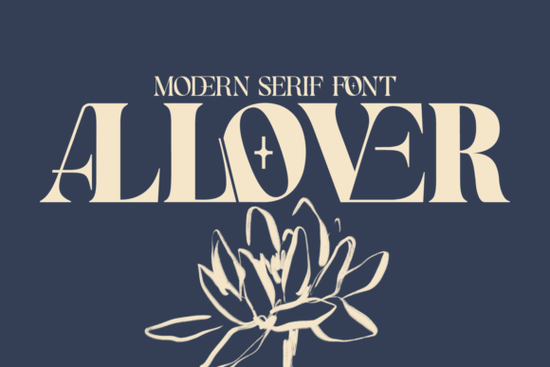
Looking for a serif font that feels bold and refined without being overly traditional? The Allover Modern font brings together elegant serif styling with large, eye-catching letterforms and decorative details on each character. It's a versatile typeface that holds up well at both large and small sizes, making it a solid choice for a wide range of creative projects. Whether you're designing a logo, laying out packaging, or adding stylish text over a photo, this modern serif delivers a polished, professional look without feeling stiff.
What Makes Allover Modern Font Different from Other Serif Fonts?
Most serif fonts fall into two camps: classic and understated, or overly ornate. Allover Modern sits right in the middle. Each letter has its own subtle decorative detail, giving the font personality without overwhelming the design. The bold weight keeps text readable, while the elegant curves add a touch of sophistication.
Compared to something like a stylish serif alternative, Allover Modern leans more toward contemporary branding. It's not trying to look vintage or hand-drawn it's clean, modern, and confident. If you pair it with a simple sans-serif for body text, the combination looks intentional and well-balanced.
Who Should Use This Font?
This typeface works well for a surprisingly broad audience:
- Logo and branding designers The decorative serifs give logos a distinctive edge without sacrificing readability.
- Print-on-demand sellers Think mugs, tote bags, and t-shirts where bold text needs to pop at a glance.
- Magazine and editorial designers Headers and pull quotes look sharp in this font's bold weight.
- Small business owners Packaging, business cards, and social media graphics all benefit from a typeface that looks premium.
- Crafters and hobbyists It cuts cleanly on Cricut and Silhouette machines, and it's easy to read even on textured backgrounds.
Where Does Allover Modern Work Best?
Here are some specific use cases where this font really shines:
- Product packaging The bold lettering catches the eye on shelf displays, and the decorative details add a handcrafted feel.
- Social media graphics Overlay it on photos, patterned backgrounds, or solid color blocks. It reads well at every size.
- Wedding and event invitations The elegant serif style fits formal designs without looking outdated.
- Website headers A bold serif header paired with a clean sans-serif body creates strong visual hierarchy.
- Book and album covers Title treatments look refined and memorable with this typeface.
How Does It Compare to Other Creative Fabrica Serif Fonts?
Allover Modern fills a different gap. It's the kind of font you reach for when you want something current, bold, and versatile. It doesn't lock you into a specific mood or era. That flexibility is what makes it useful across so many project types.
Tips for Pairing Allover Modern with Other Fonts
Good font pairing takes a design from average to polished. Here are a few combinations that work well:
- Allover Modern + a geometric sans-serif (like Montserrat or Poppins) for clean, modern branding.
- Allover Modern + a handwritten script for wedding invitations or feminine product packaging.
- Allover Modern alone, all caps for short headlines where you want maximum impact.